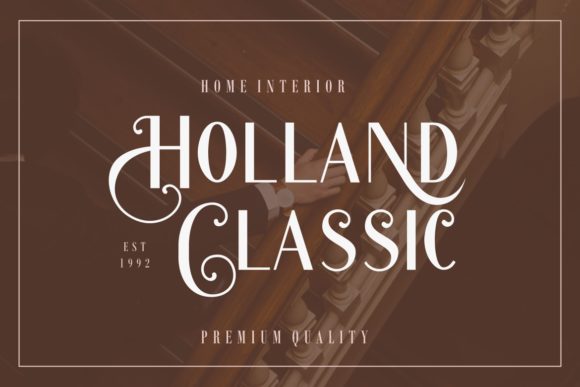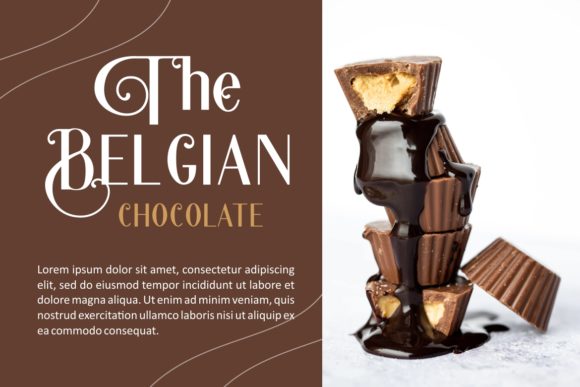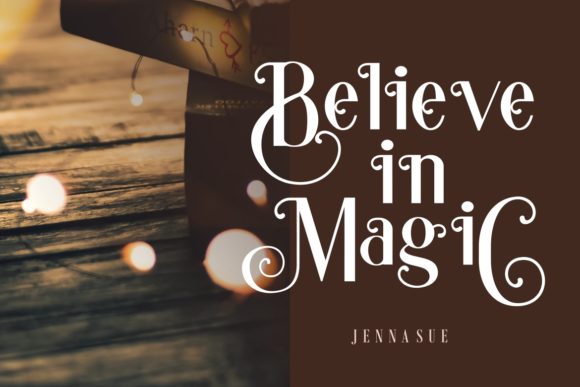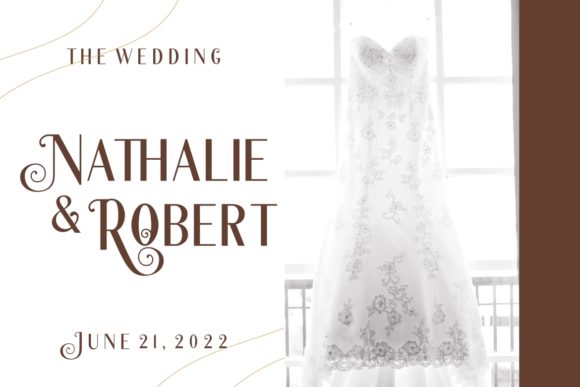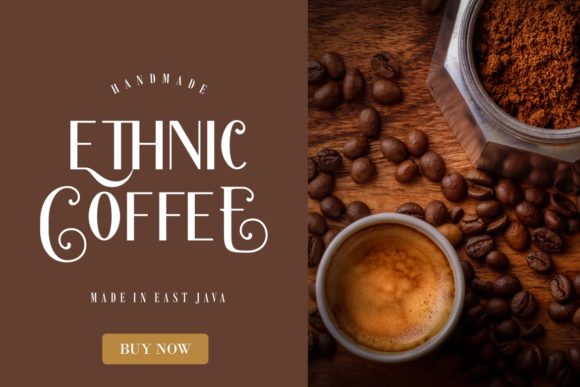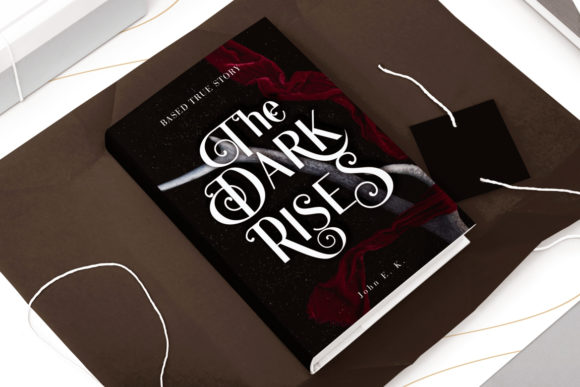
Crows Font: Elevate Your Designs with Elegance and Playfulness
In the world of typography, finding the perfect font that combines elegance, sophistication, and playfulness can be a daunting task. However, look no further than Crows Font, a versatile display font that is sure to add a bold touch to your next design project. With its wide range of applications, from headlines to branding, Crows Font is an excellent choice for designers and crafters looking to elevate their work.
A Font that Exudes Elegance and Sophistication
Crows Font is a masterfully crafted typeface that boasts an air of elegance and sophistication. Its refined lines, curves, and shapes create a sense of luxury and high-end quality, making it perfect for designs that require a touch of class. Whether you’re working on a branding project, a website, or a marketing campaign, Crows Font is sure to impress.
But also Playful and Fun
While Crows Font exudes elegance and sophistication, it’s also playful and fun. The font’s unique characteristics and charming glyphs add a touch of whimsy to any design, making it perfect for projects that require a bit of personality. From invitations to packaging, Crows Font is sure to add a dash of fun and creativity to your work.
Versatile and Highly Adaptable
One of the standout features of Crows Font is its versatility. With a wide range of applications, this font can be used for everything from headlines to branding, and even social media graphics. Whether you’re working on a digital project or a print design, Crows Font is highly adaptable and can be easily integrated into your workflow.
Crows Font is PUA (Private Use Area) encoded, which means that you can access all of the charming glyphs and swashes with ease. This feature makes it easy to add a touch of personality to your designs, without requiring extensive font knowledge or technical expertise.
Special Features to Enhance Your Designs
Crows Font also features a wealth of special features, including alternate glyphs and ligatures. These features allow you to add an extra layer of creativity and sophistication to your designs, making them stand out from the crowd. With Crows Font, you can create unique and eye-catching designs that showcase your brand’s personality and style.
Crows Font is an excellent choice for designers and crafters looking to elevate their work. With its elegant and sophisticated design, playful personality, and versatile applications, this font is perfect for a wide range of projects. Whether you’re working on a branding campaign, a website, or a craft project, Crows Font is sure to add a bold touch of creativity and style.
Key Features of Crows Font
- Elegant and sophisticated design
- Playful and fun personality
- Versatile and highly adaptable
- Alternate glyphs and ligatures for added creativity
- Perfect for designers and crafters
In conclusion, Crows Font is an exceptional display font that offers a unique combination of elegance, sophistication, and playfulness. With its versatile applications, special features, and PUA encoding, this font is perfect for designers and crafters looking to add a bold touch to their work. Whether you’re working on a branding project, a website, or a craft project, Crows Font is sure to elevate your designs and showcase your creativity.